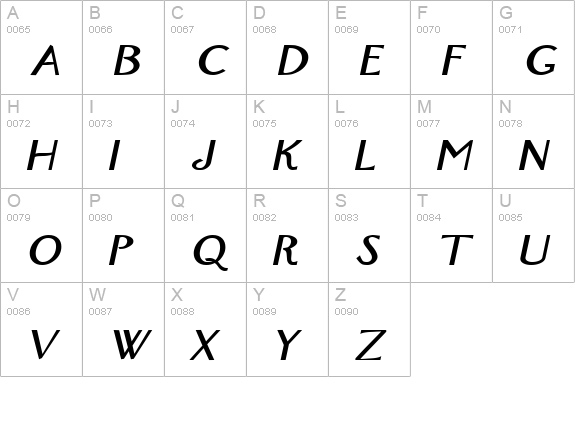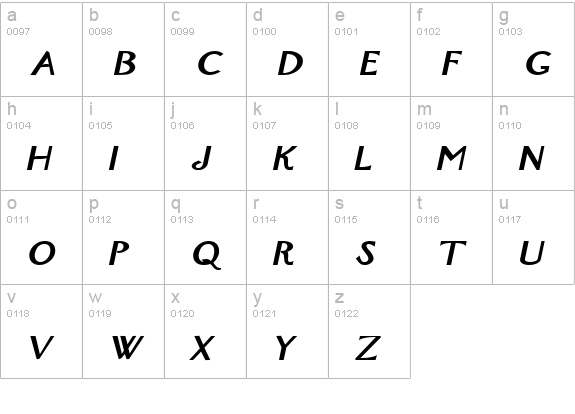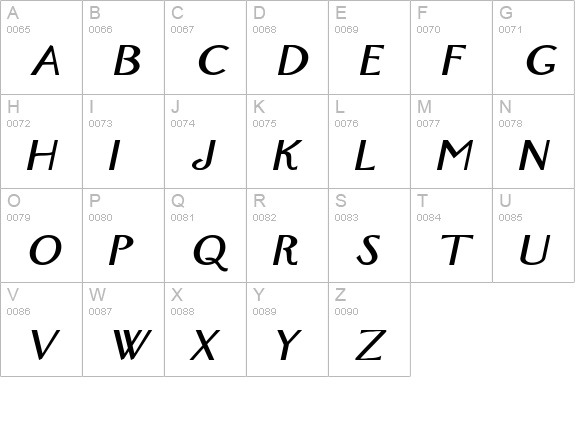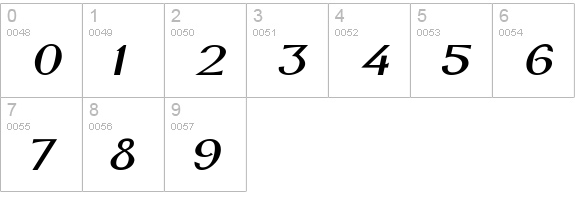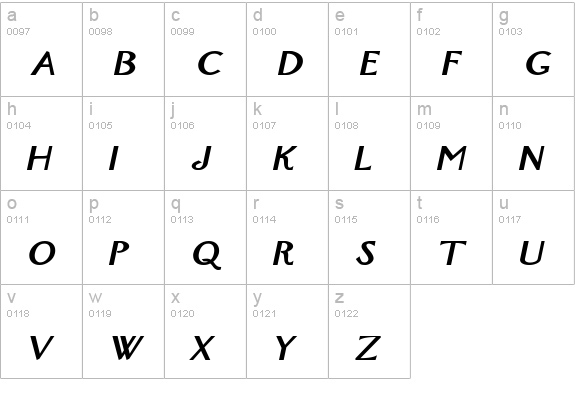
New York-Extended Bold Italic Font Details
New York-Extended Bold Italic is a strong, high-contrast, extended-width, italic variant in the New typeface family \xE2\x80\x94 well suited to headlines, attention-grabbing titles, and strong calls-to-action.
Introducing the stunning New York-Extended Bold Italic font, a bold and dynamic typeface that exudes modernity and sophistication. Its extended design adds a touch of elegance, making it perfect for headlines, branding, and editorial projects. The italic styling brings a sense of movement and flair to any text, creating a visually striking impression. And the best part? This exceptional font is available for free download at FontsMarket.com. Don't miss out on the opportunity to enhance your designs with the New York-Extended Bold Italic font and make a bold statement that will captivate your audience.